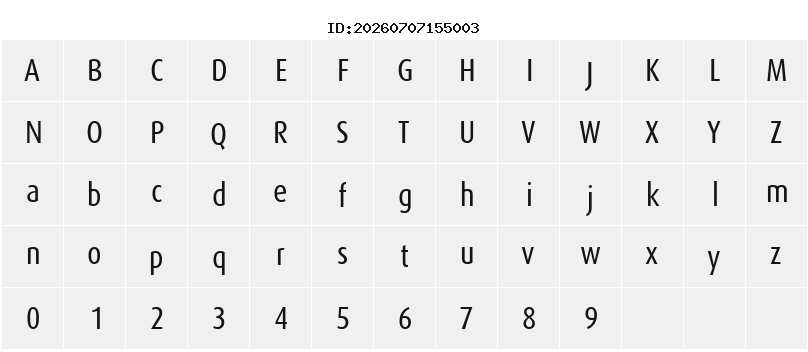
• Font Name: DaxCondensed
• Full Font Name: DaxCondensed
• PostScript Name: DaxCondensed
About DaxCondensed.ttf
DaxCondensed.ttf is a modern, elegant sans-serif font designed for ultimate readability and visual harmony. Perfect for branding, headlines, web design, and print materials.